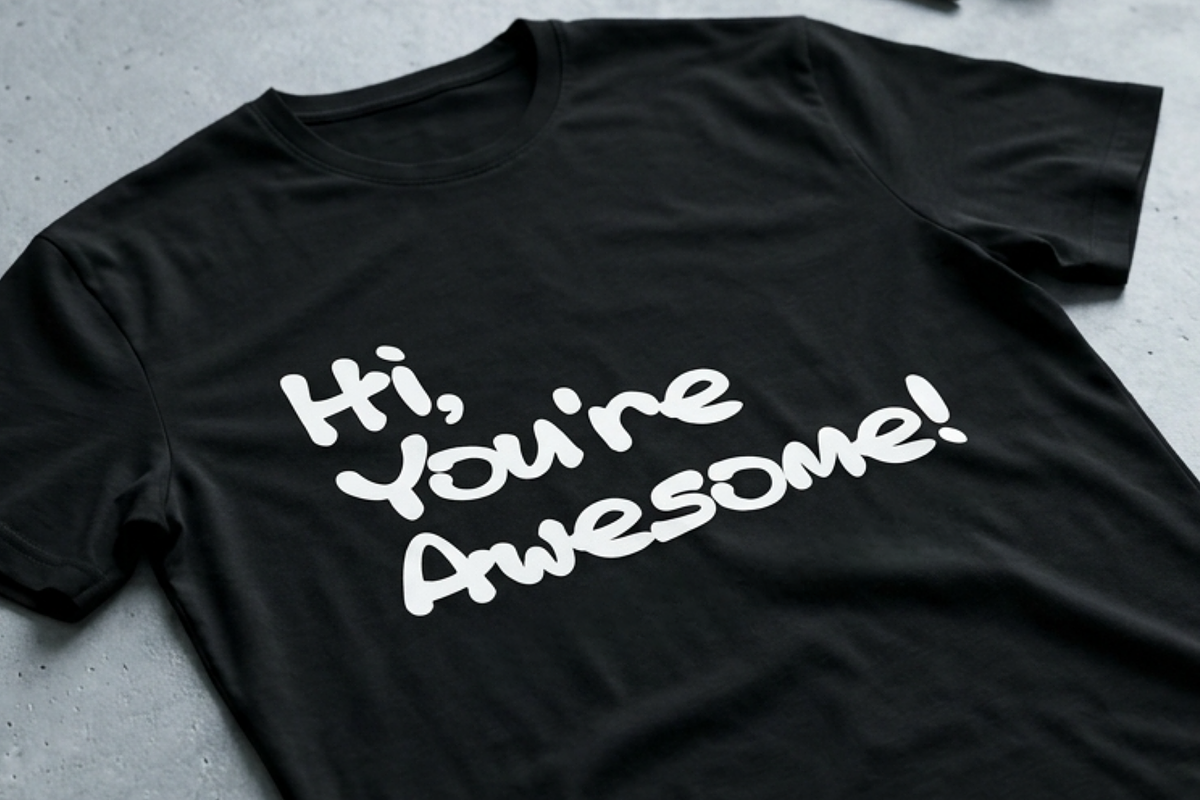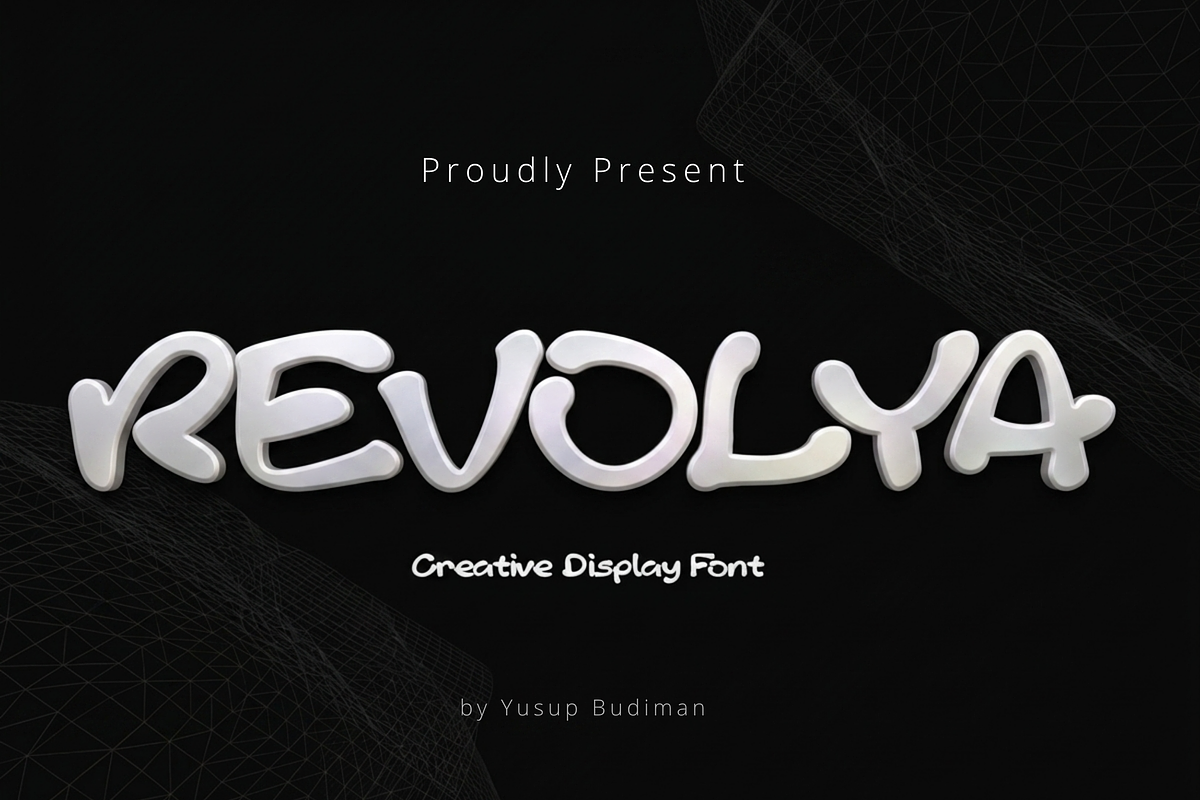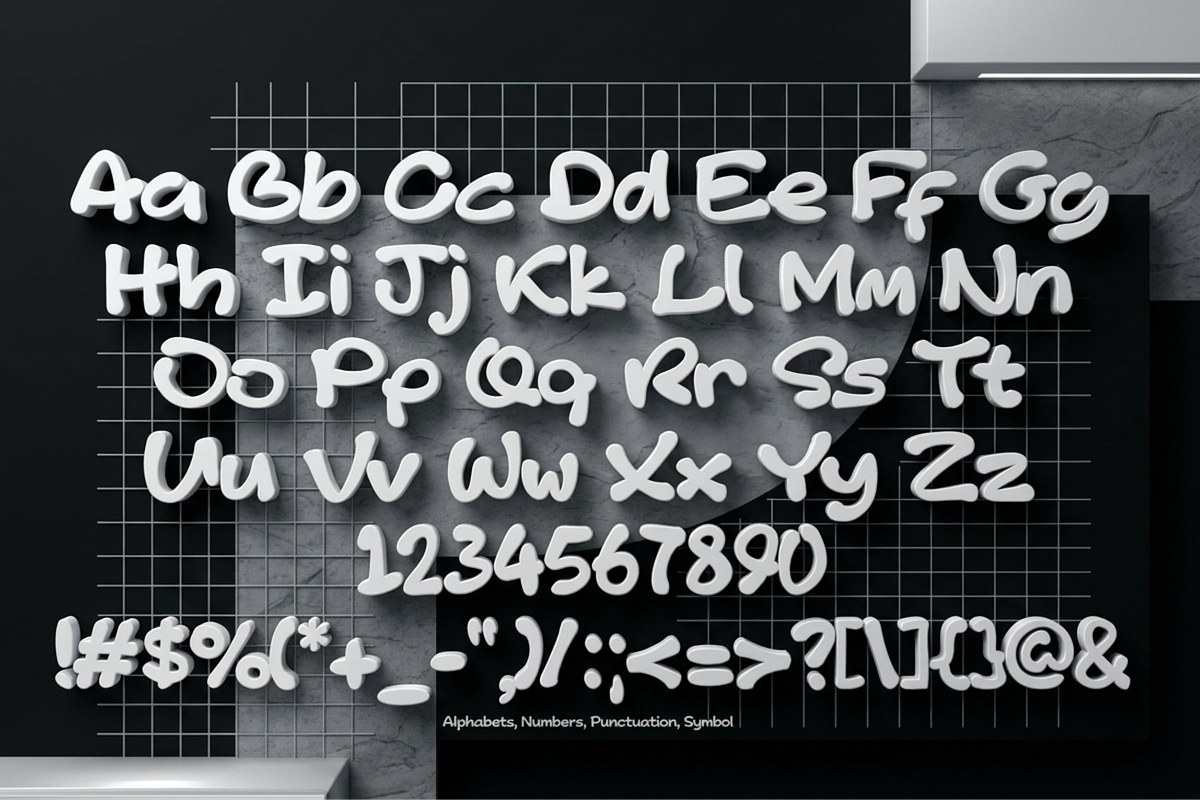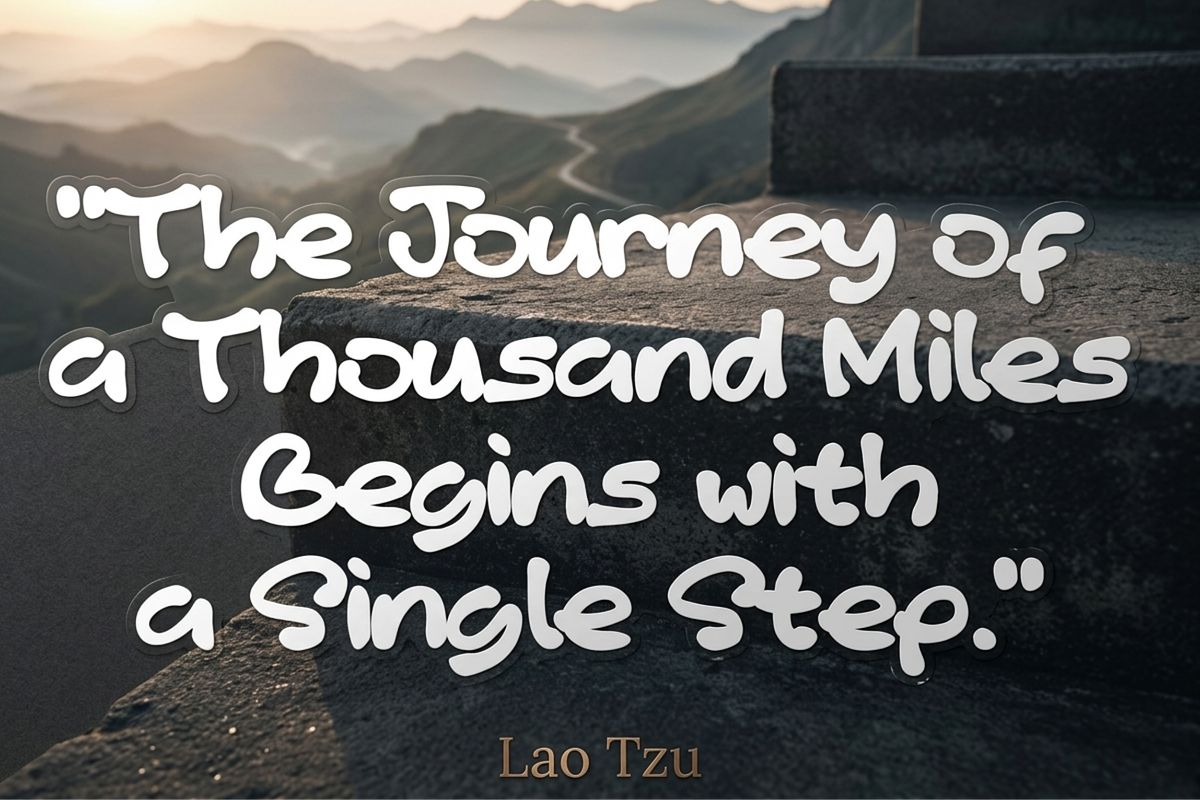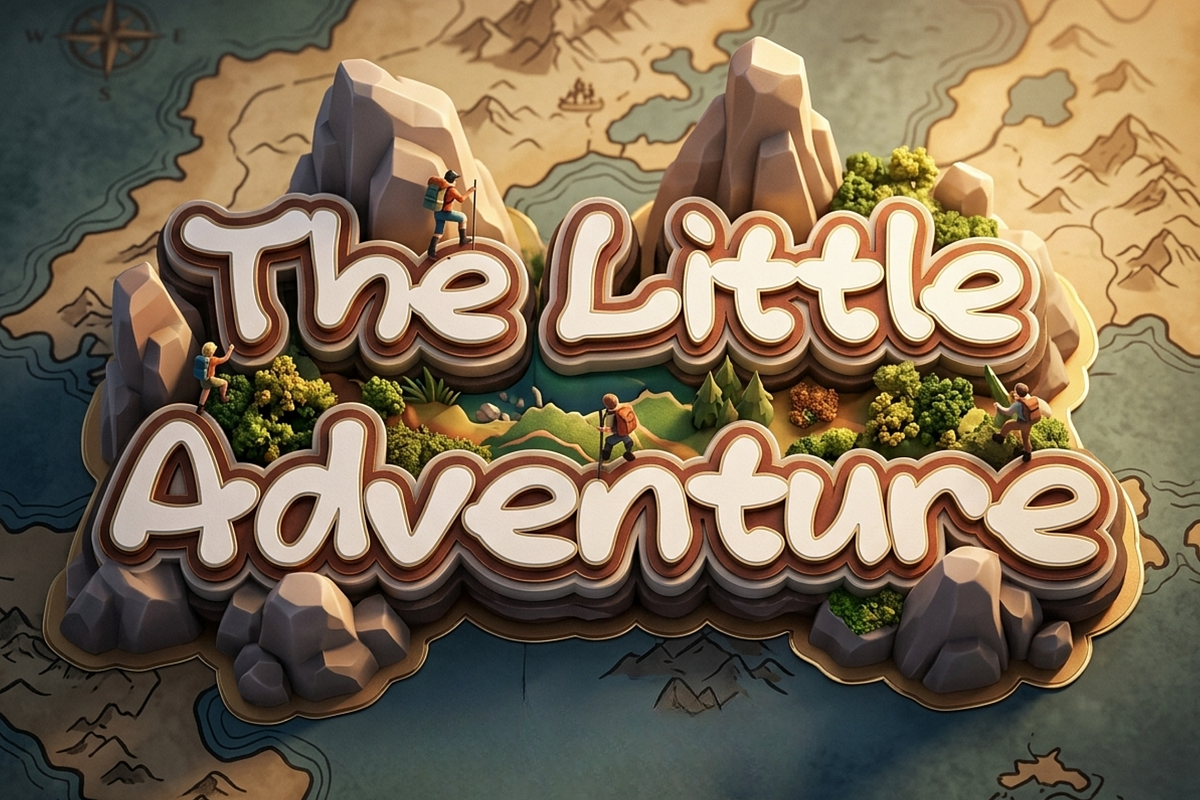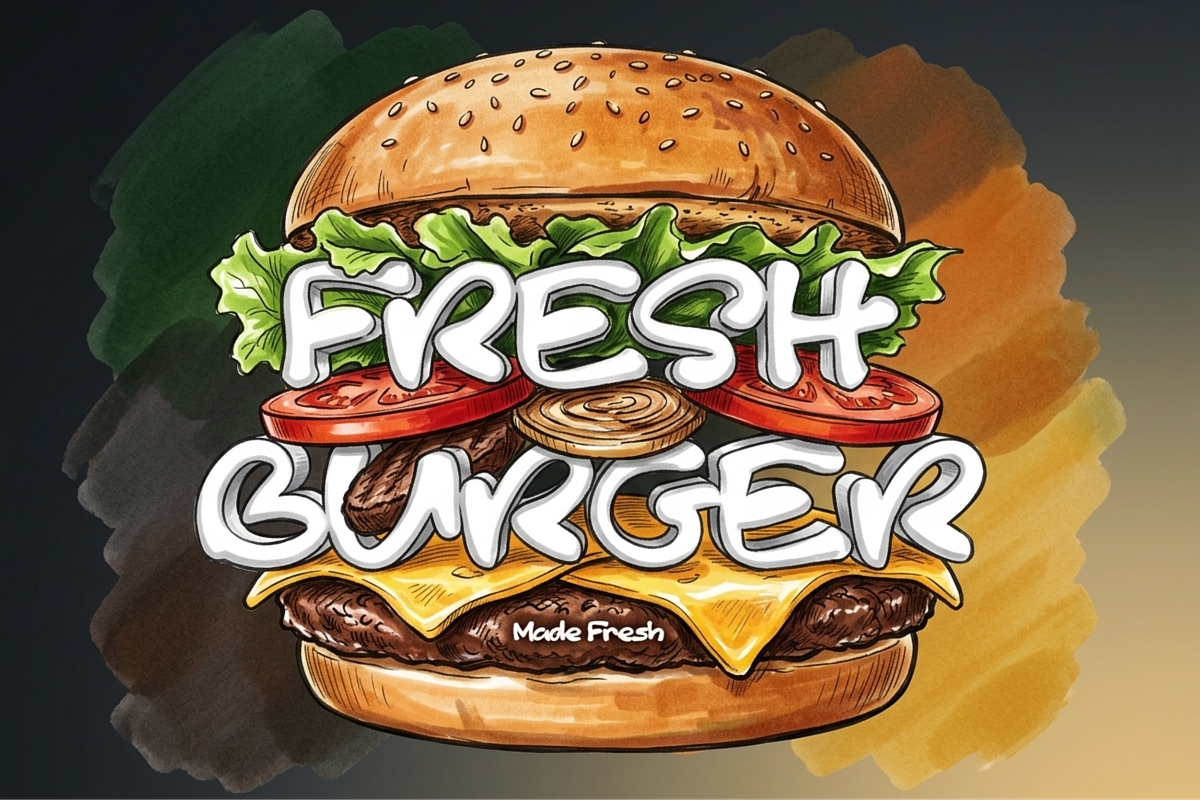
REVOLYA – Creative Display Font
Introducing REVOLYA, a modern creative display font designed to bring personality, warmth, and playful energy to every design.
Featuring smooth rounded shapes, clean handwritten-inspired strokes, and balanced proportions, Revolya delivers a friendly appearance while remaining highly readable across logos, branding, packaging, and display typography.
Its versatile character makes it equally suitable for children's products, adventure themes, food branding, gaming, merchandise, posters, and modern creative projects.
Whether you're designing an exciting logo, eye-catching packaging, inspiring quotes, or engaging social media graphics, Revolya adds a unique handcrafted touch without sacrificing clarity.
Bold, approachable, and full of personality, Revolya is ready to become your next favorite display font.
Display Typography
Smooth Rounded Letterforms
High Readability
Creative Display Style
Logo Friendly
REVOLYA is a versatile creative display font that blends modern simplicity with a warm handcrafted feel. From branding and logos to food packaging, games, merchandise, children's products, and outdoor-themed designs, Revolya helps your typography stand out with confidence and charm.